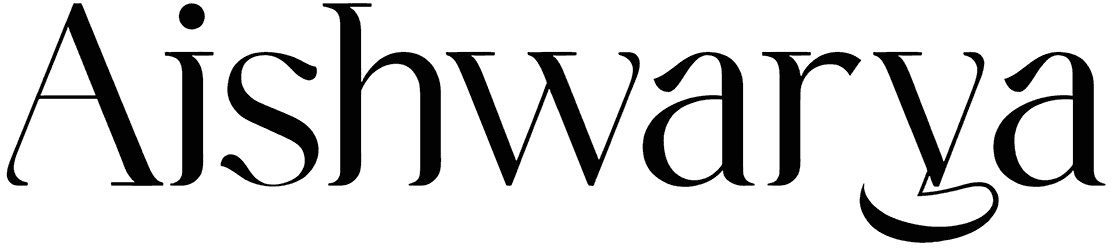
Aishwarya Font
As a luxury serif font, Aishwarya is supposed to implement a retro theme in your art. However, it does it so elegantly and through such innovative forms of serifs that it’ll end up quite fashionable instead.
This typography font may be the only graphic design material you need to nail your next first-class branding designs. From an art gallery to apparel, crystal utensils, and everything like that in need of a stylish logo, the Aishwarya font can do it all flawlessly.